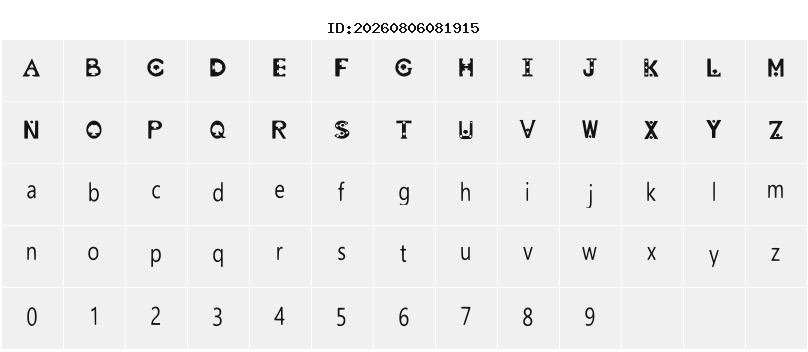
• Font Name: Oromo_Arts_Font
About Oromo_Arts_Font.ttf
Oromo_Arts_Font.ttf is a modern, elegant sans-serif font designed for ultimate readability and visual harmony. Perfect for branding, headlines, web design, and print materials.